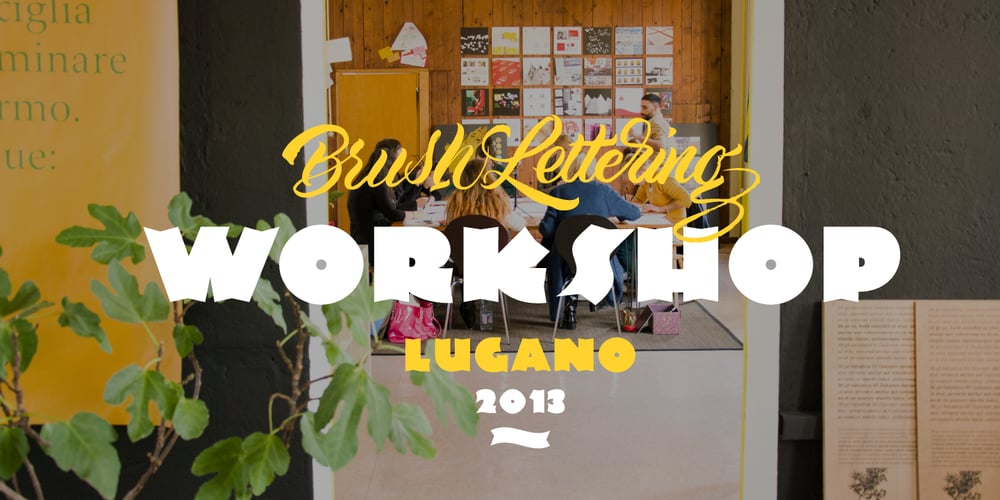
Newland Font Family was designed by Giuseppe Salerno, Paco González and published by Resistenza. Newland contains 3 styles and family package options. Newland: A Bold Evolution Inspired by Rudolf Koch’s NeulandNewland is a blocky typeface that pays homage to the timeless elegance of Rudolf Koch’s calligraphic masterpiece, Neuland. Designed with a modern twist, Newland embodies the essence of rugged sophistication, making it a versatile choice for a wide range of design projects. The Regular version of Newland retains the robustness and clarity of its inspiration while infusing it with a contemporary flair. Each letter stands tall and proud, with defined edges and confident strokes. Its clean lines and balanced proportions make it ideal for conveying strength and reliability, making it perfect for branding, headlines, and signage. For those seeking a softer touch, Newland Rounded offers a gentle reinterpretation of the classic blocky aesthetic. Embracing smoother curves and rounded corners, this version exudes approachability and warmth. The rounded edges lend a friendlier feel to the typeface, making it well-suited for editorial design, product packaging, and invitations where a more inviting tone is desired. With Newland Rough, we delve into the realm of texture and character. This version retains the fundamental structure of Newland but adds a weathered, handcrafted feel. Each letter bears the marks of imperfections, giving it an authentic and rustic charm. Whether you’re aiming for a vintage-inspired design or want to add a touch of personality to your project, Newland Rough delivers a distinctive aesthetic that stands out.No matter which version you choose, Newland offers versatility and style, making it a valuable addition to any designer’s toolkit. With its roots firmly planted in tradition and its gaze fixed on the future, Newland is ready to make a bold statement in your next creative endeavor.